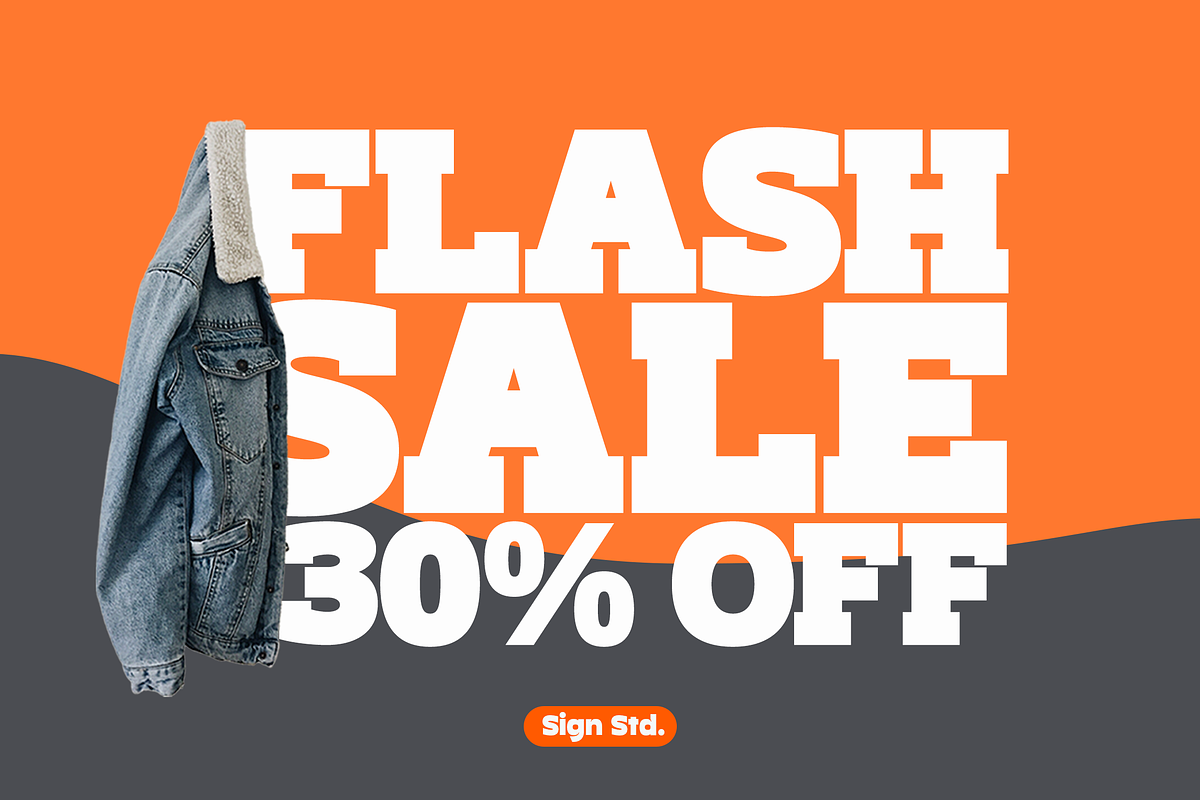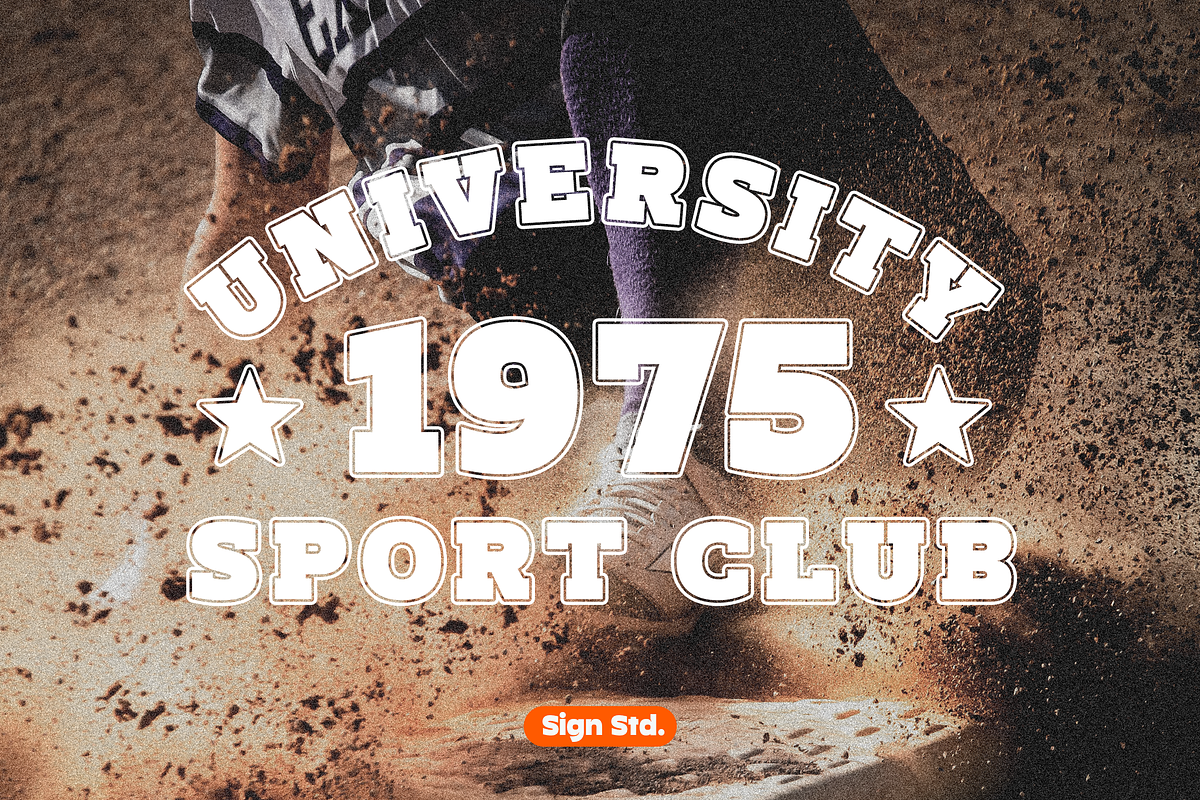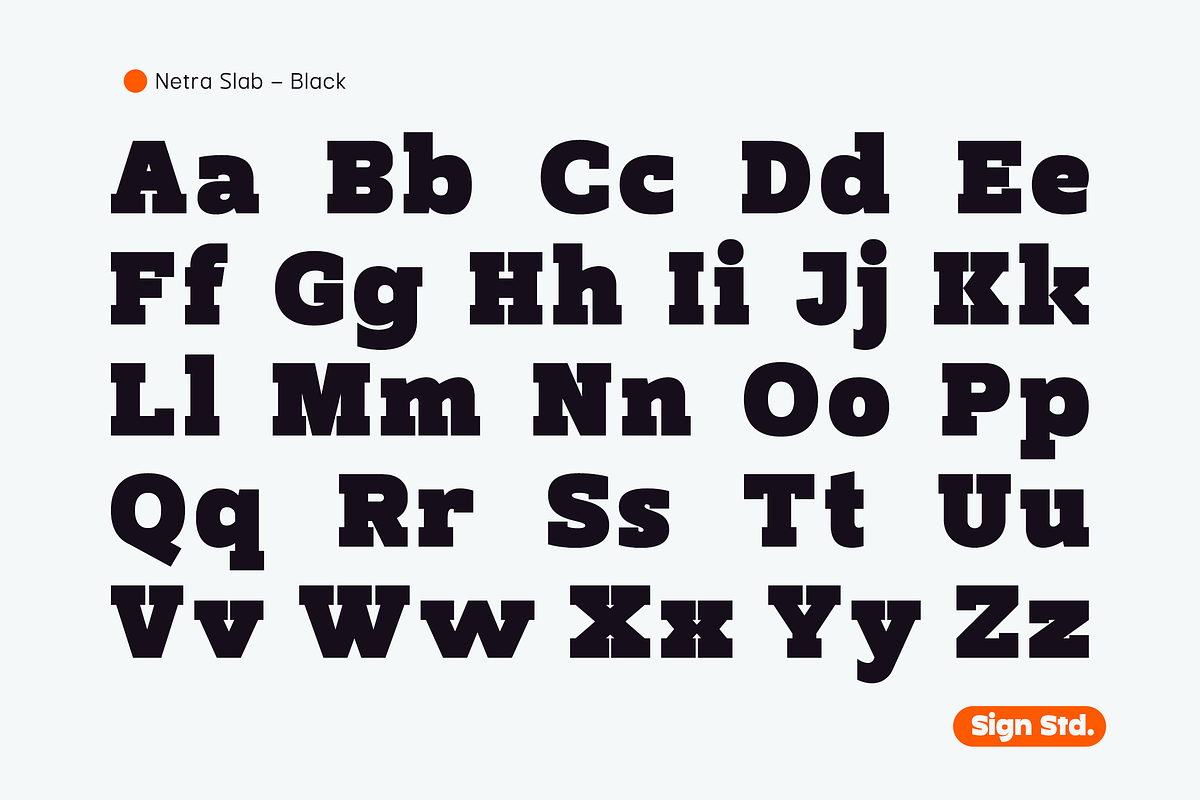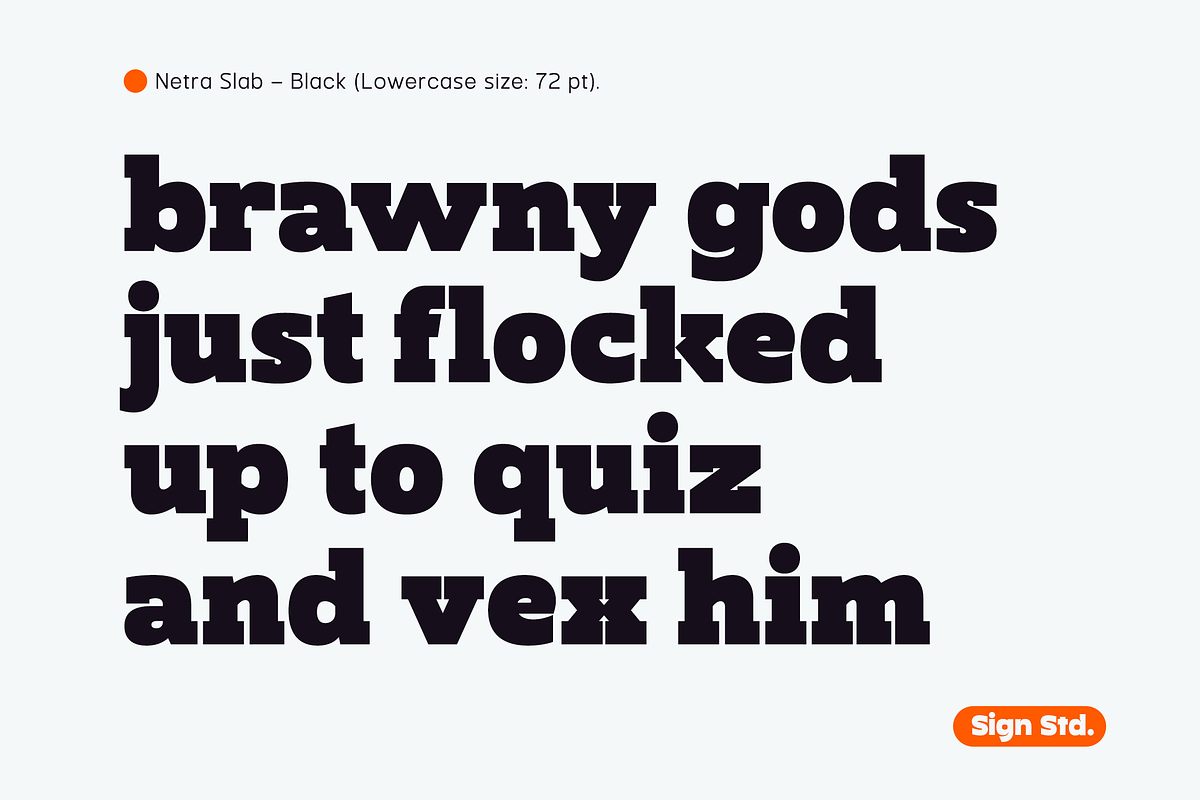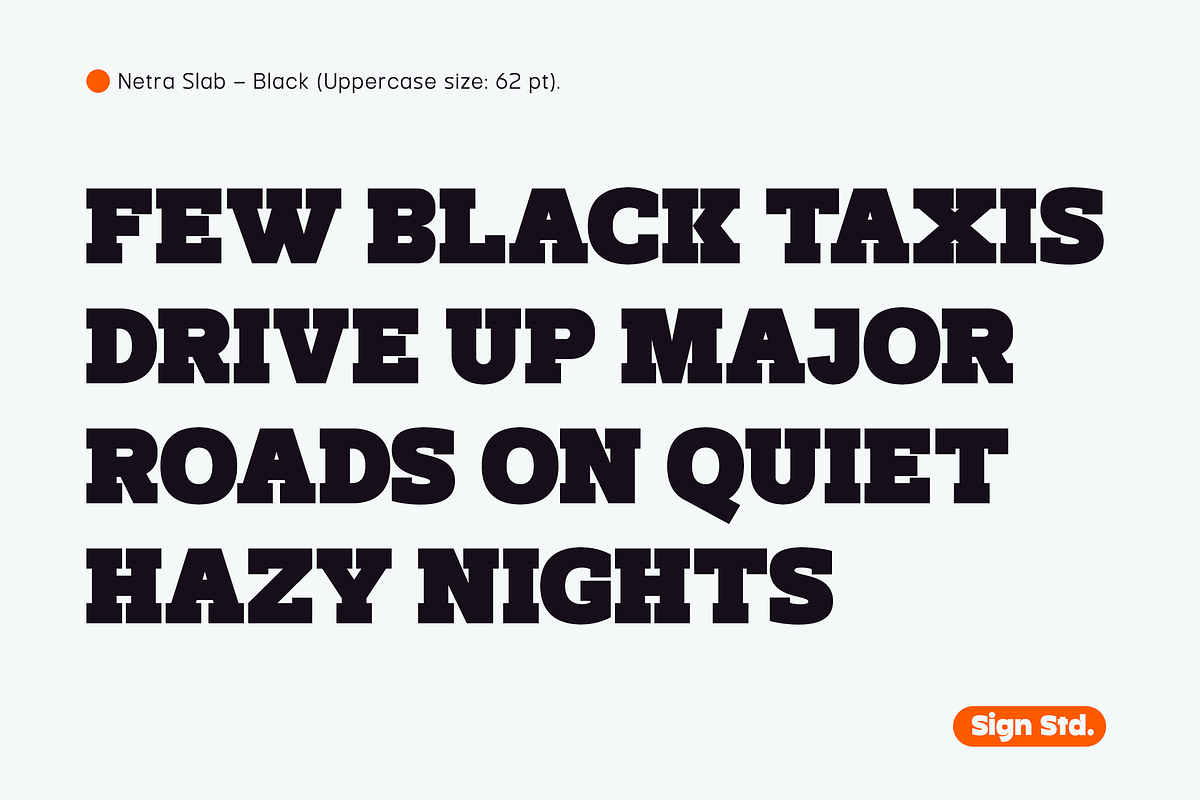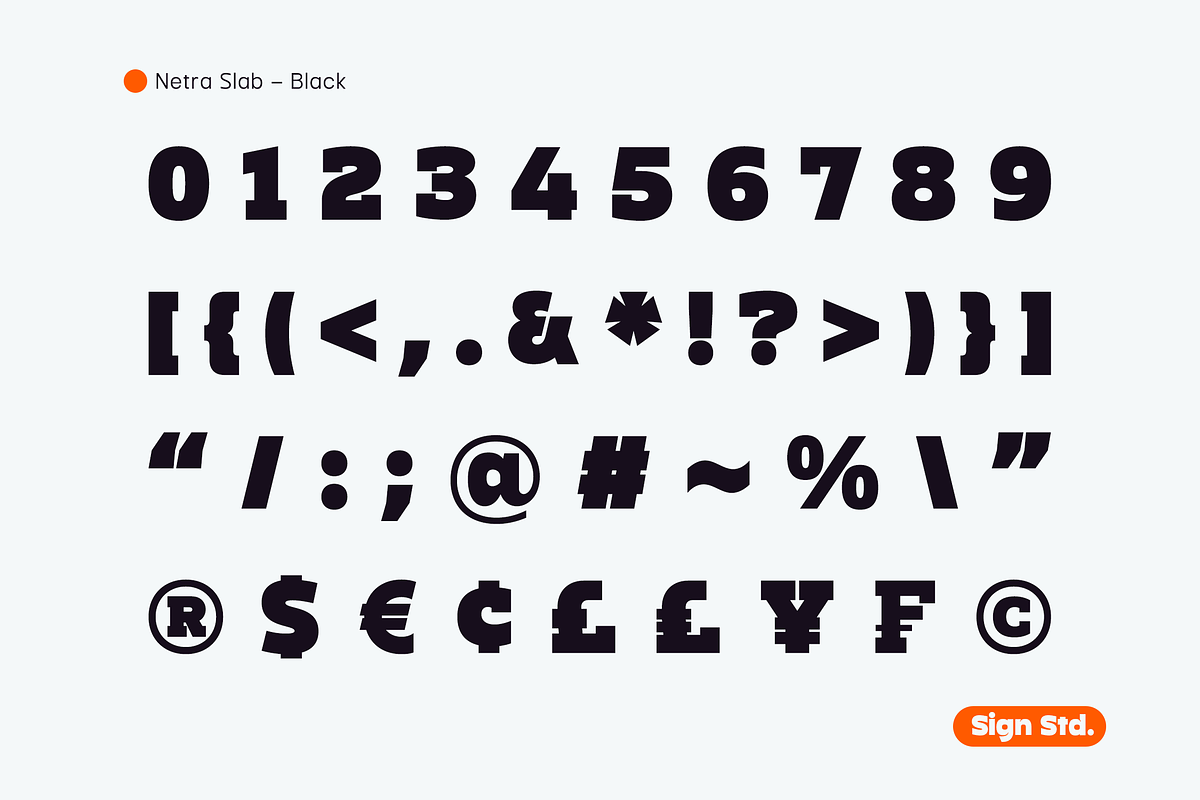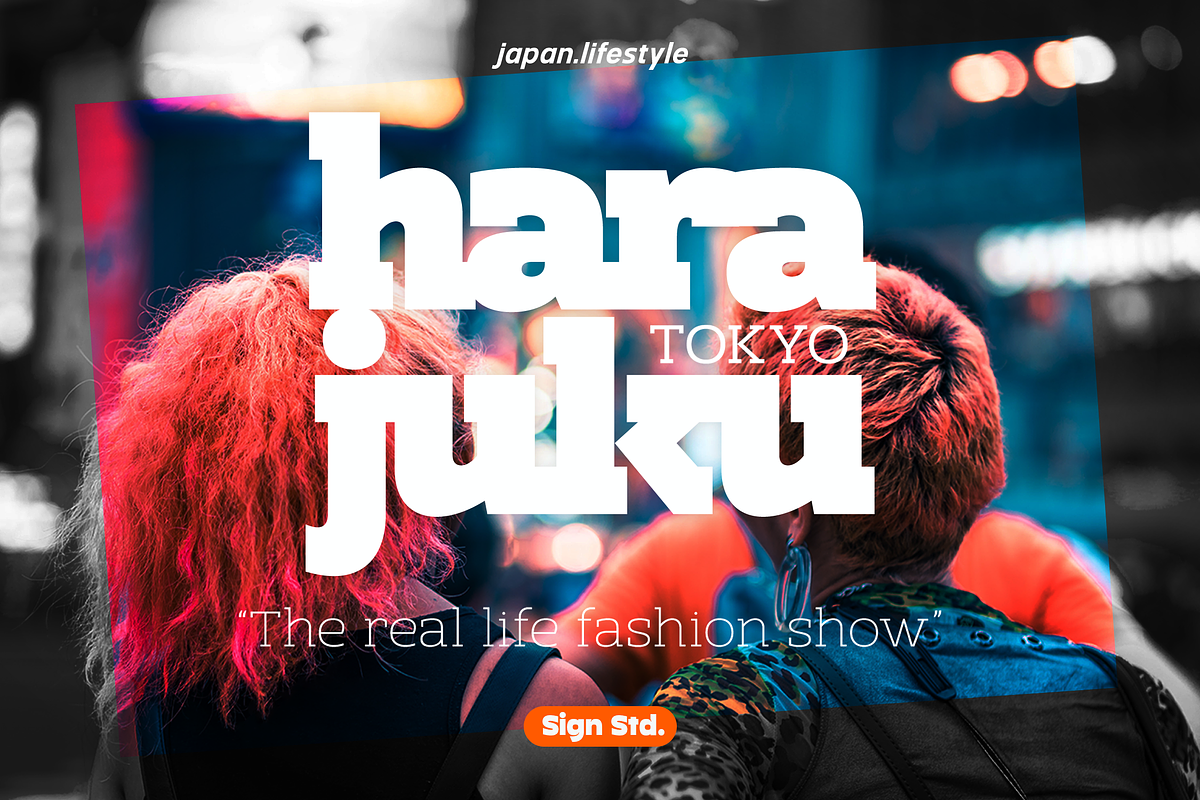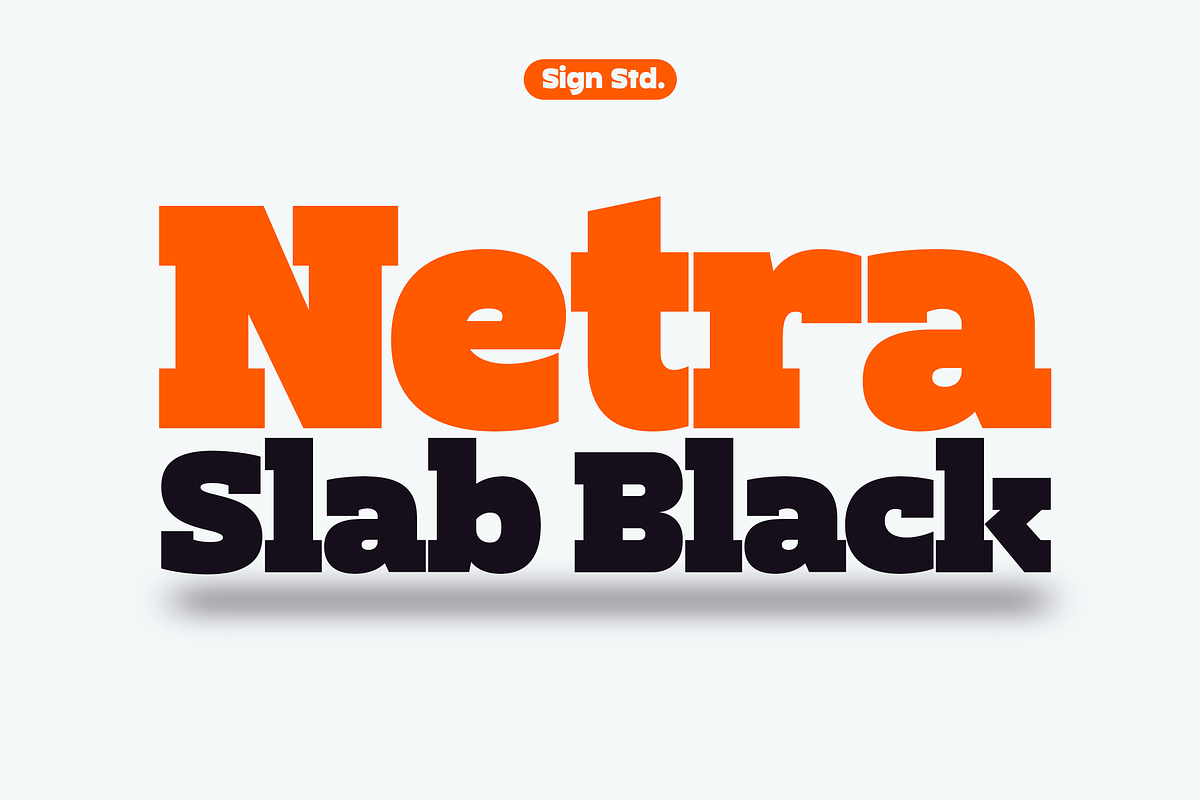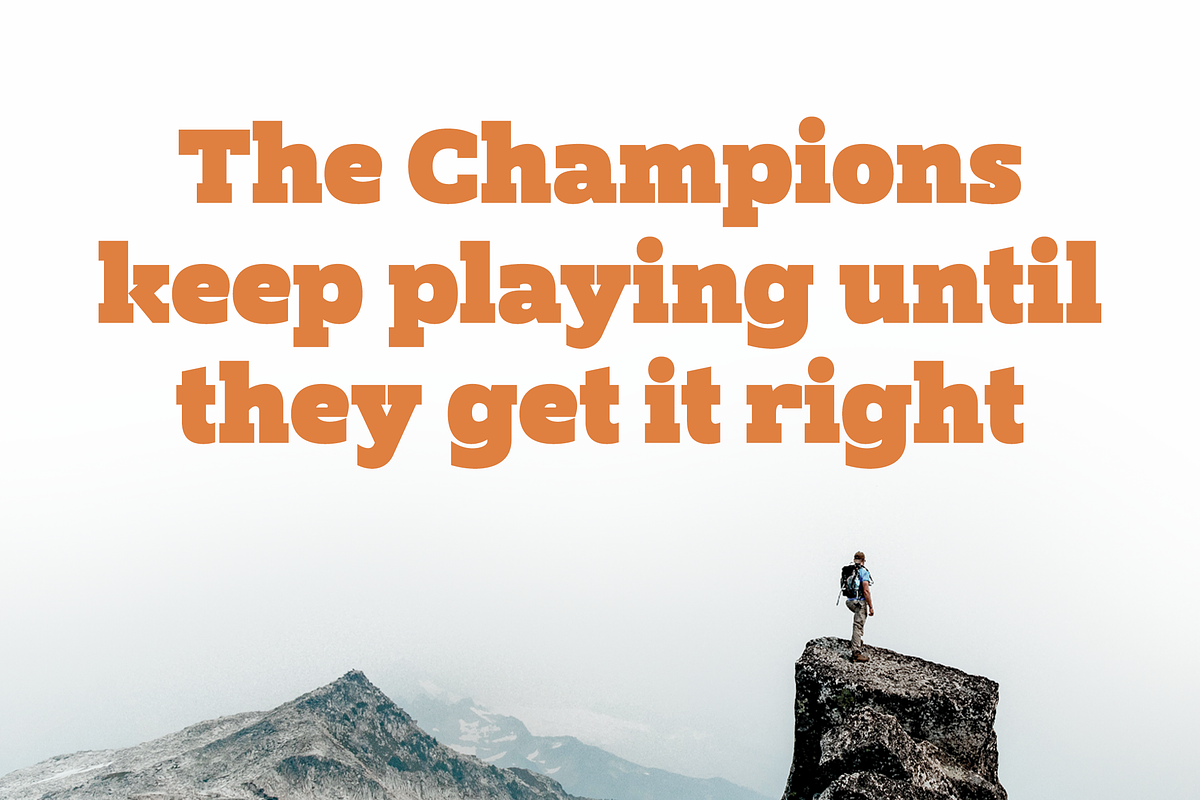
Netra Slab - Black Style
Netra Slab - Black is a minimalist and modern font. With 390+ characters it can support more than 30 languages. It is perfect for typography that requires intense attention. This font is suitable for writing general text, titles, even for brand logos.